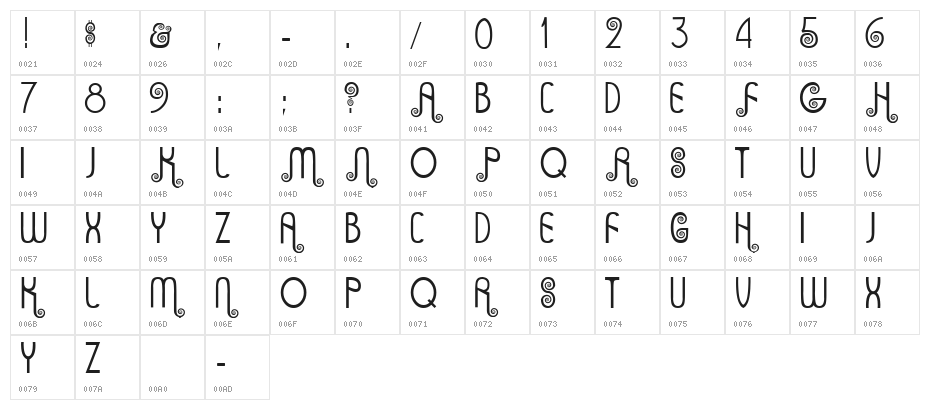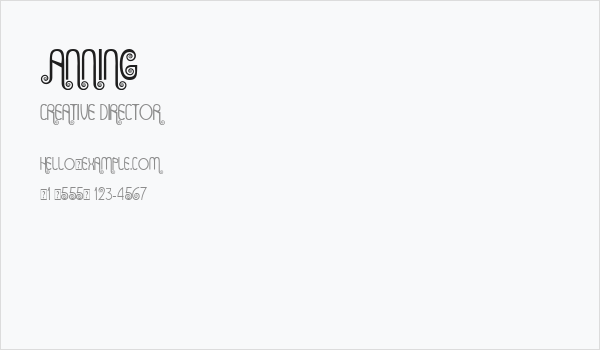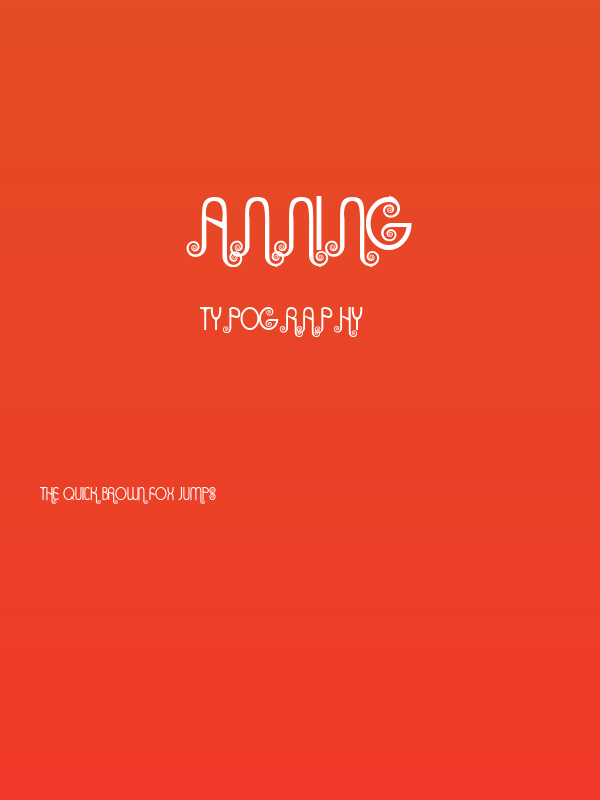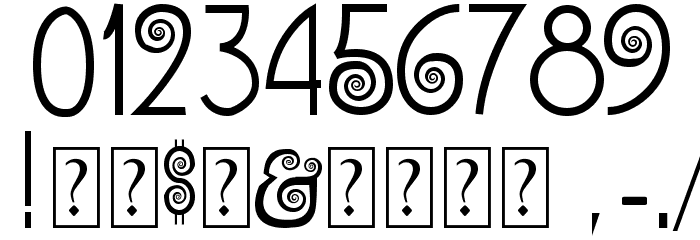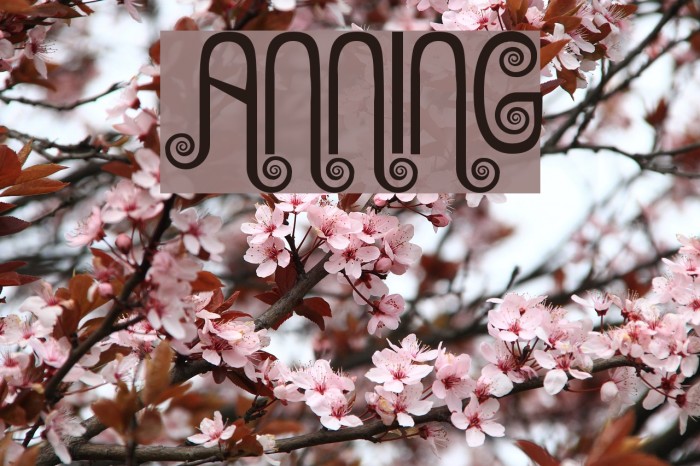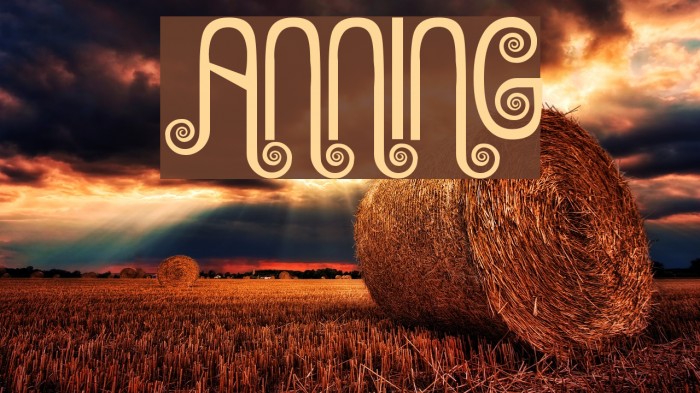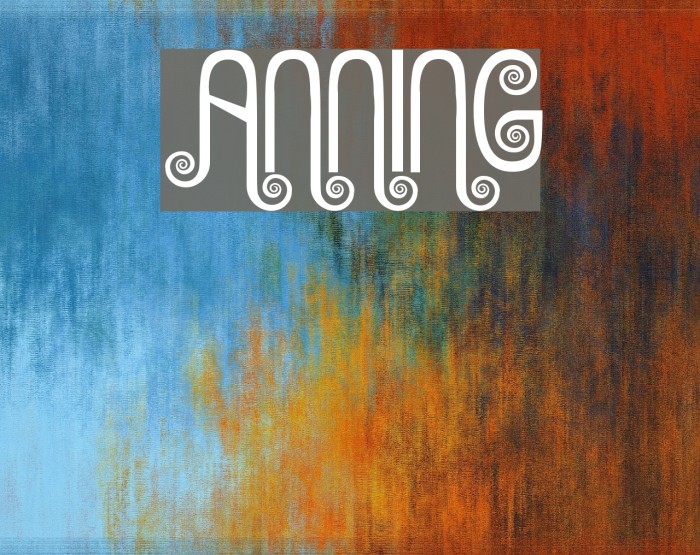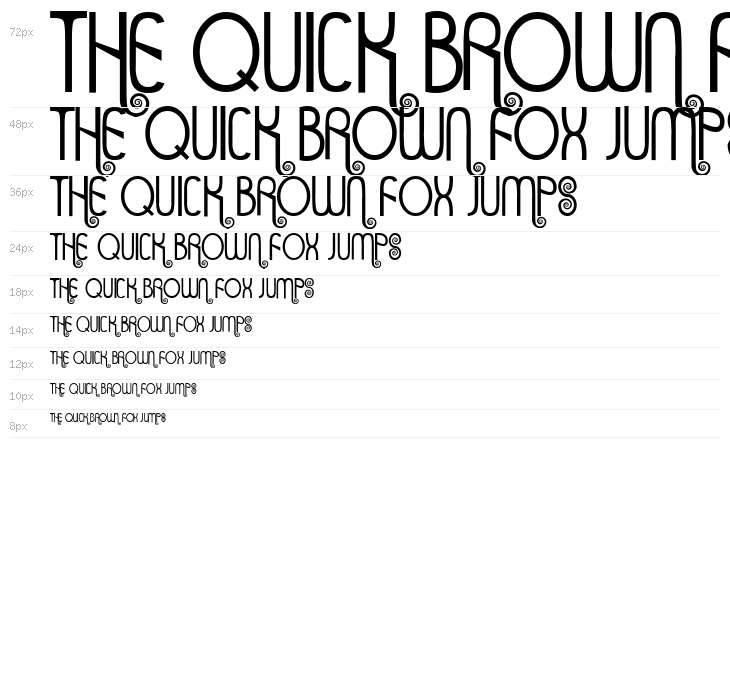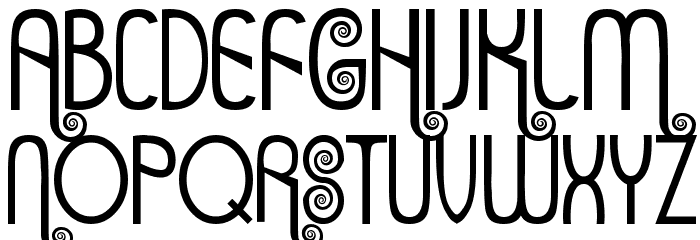
Anning Font
Anning Description
This font features a unique and playful design with whimsical curls and swirls integrated into the characters. The uppercase letters are bold and expressive, with distinct spiral embellishments that add a decorative flair. The lowercase letters maintain a consistent style, offering a harmonious blend of creativity and readability. Numbers and special characters follow the same artistic theme, making them stand out with their intricate details. The overall appearance is both modern and artistic, suitable for projects that require a touch of elegance and fun.
ANNING UPPERCASE
ANNING LOWERCASE
ANNING OTHER CHARS